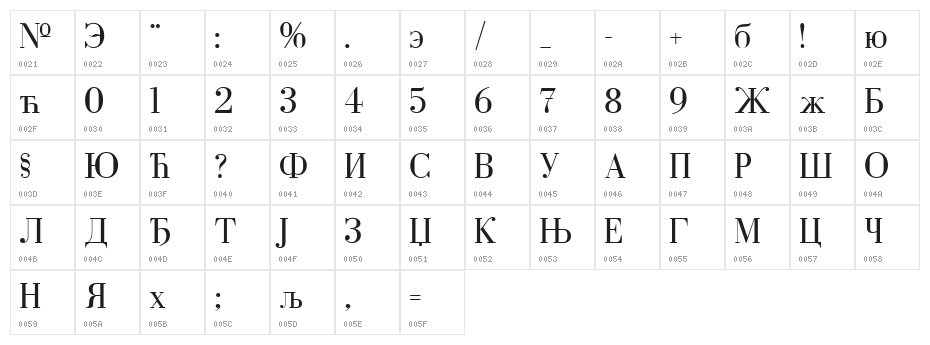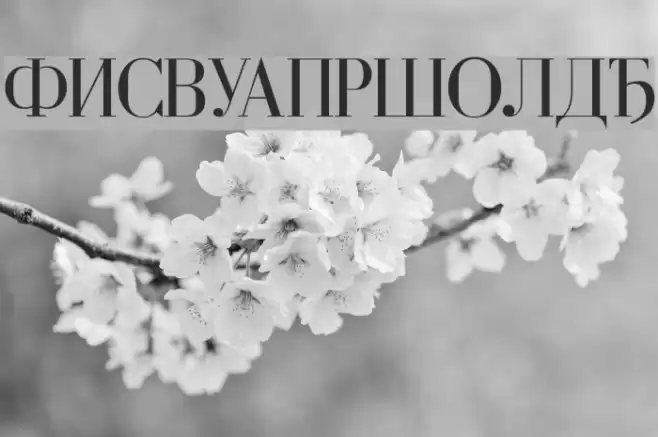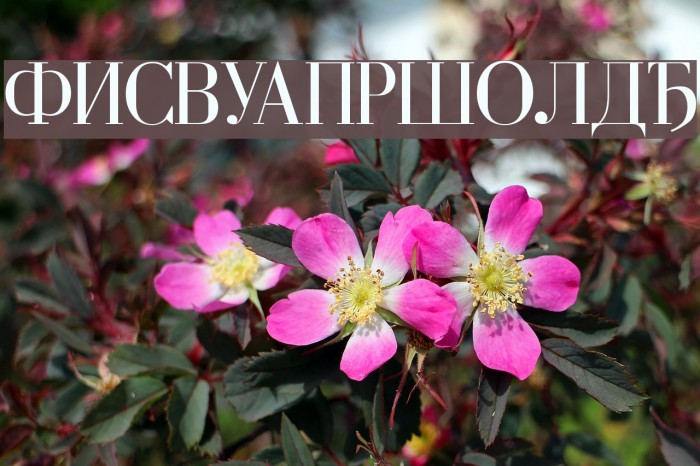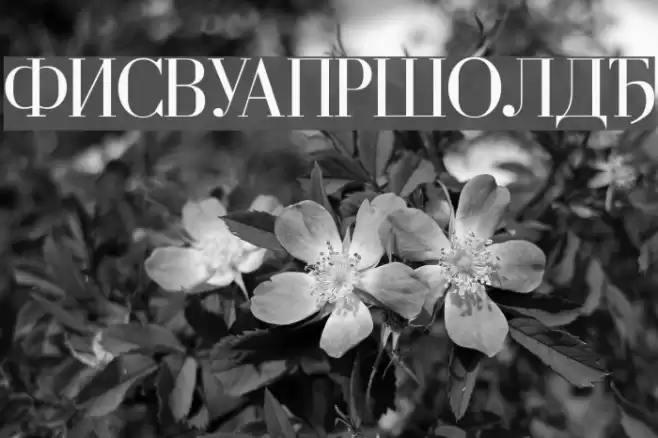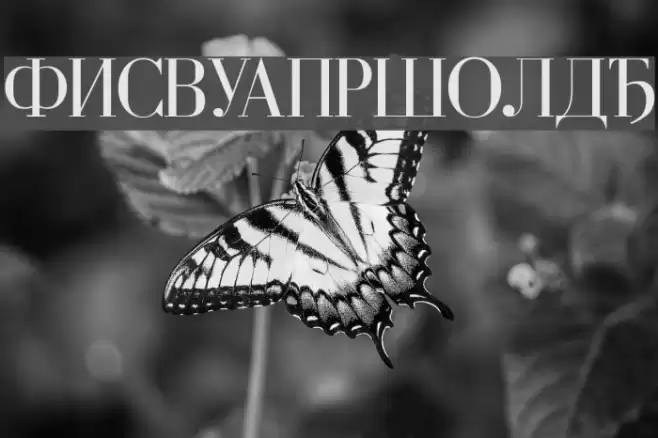
Cyrillic Font
Cyrillic Description
This font features a sophisticated and elegant design with high contrast between thick and thin strokes, typical of modern serif typefaces. The characters are meticulously crafted, showcasing a blend of sharp and smooth curves that add a touch of refinement. The uppercase letters exhibit a classic style with pronounced serifs, while the lowercase letters maintain a consistent flow, enhancing readability. The numerals are distinct and well-proportioned, complementing the overall aesthetic. Special characters are thoughtfully integrated, maintaining the font's cohesive appearance.
| Use Case | Headlines, Body text, Logos |
| Proposed Projects | Ideal for luxury branding, editorial design, high-end packaging, and formal invitations. |